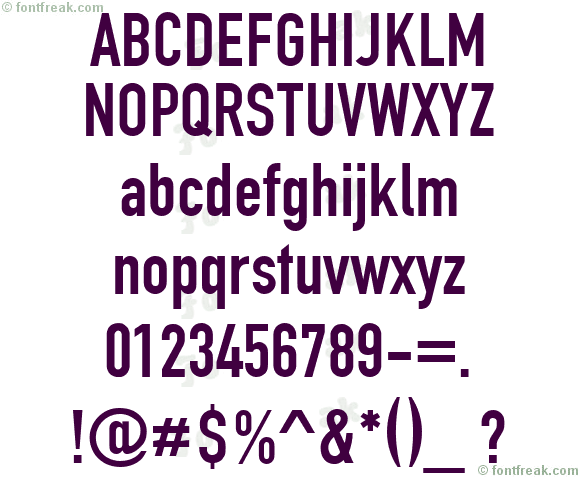
TGL0-1451Engschrift
About TGL0-1451Engschrift
The TGL0-1451Engschrift font, designed by Peter Wiegel, is a striking sans-serif typeface that captures attention with its bold, contemporary aesthetic. With a clean and uniform stroke weight, this font exhibits a modern appeal, making it suitable for a variety of design applications. The geometric forms and minimalistic design contribute to its versatility, allowing for effective communication without sacrificing style. The spacing between characters is well-considered, ensuring readability while maintaining an attractive overall appearance.
This font is particularly well-suited for use cases such as restaurant menus, where clarity and visual impact are essential to entice customers. It can also shine in event posters, offering a modern touch that draws viewers in. Additionally, TGL0-1451Engschrift is an excellent choice for branding projects, providing a solid foundation for logo design that requires a contemporary edge. Graphic designers will find this font ideal for digital content, including social media graphics and website headers, where a clean, bold typeface can enhance user experience and engagement.
What sets the TGL0-1451Engschrift font apart is its ability to blend a modern aesthetic with practical functionality. Its boldness ensures visibility, while its clean lines provide a sense of professionalism. For anyone seeking a versatile typeface that can adapt to numerous design needs, the TGL0-1451Engschrift font free download is an excellent choice, ensuring that your projects stand out with clarity and style.